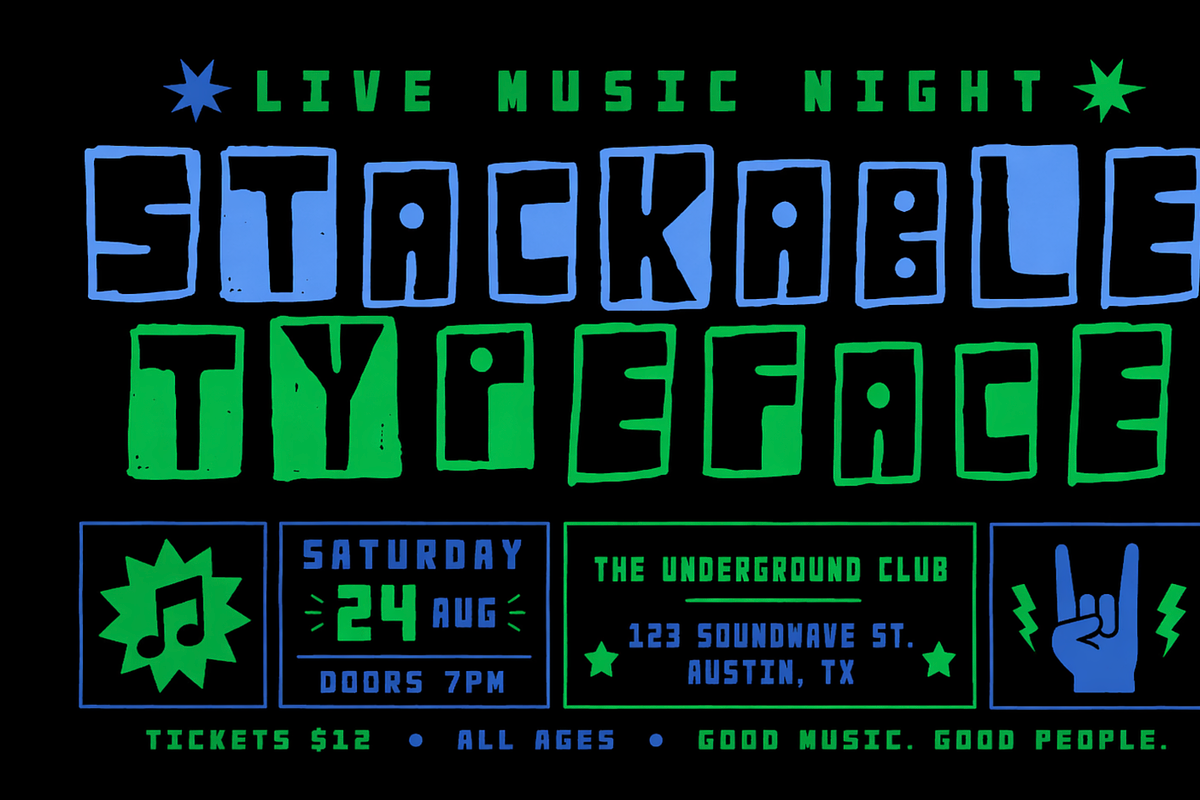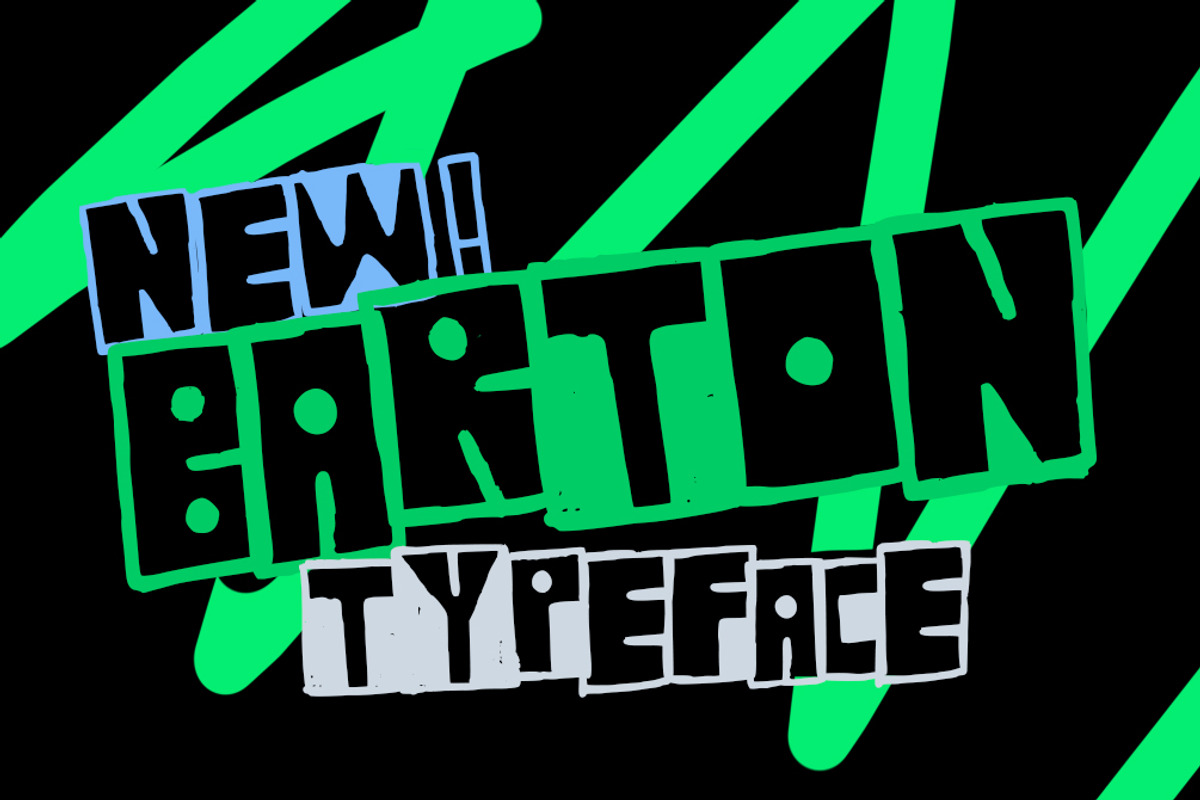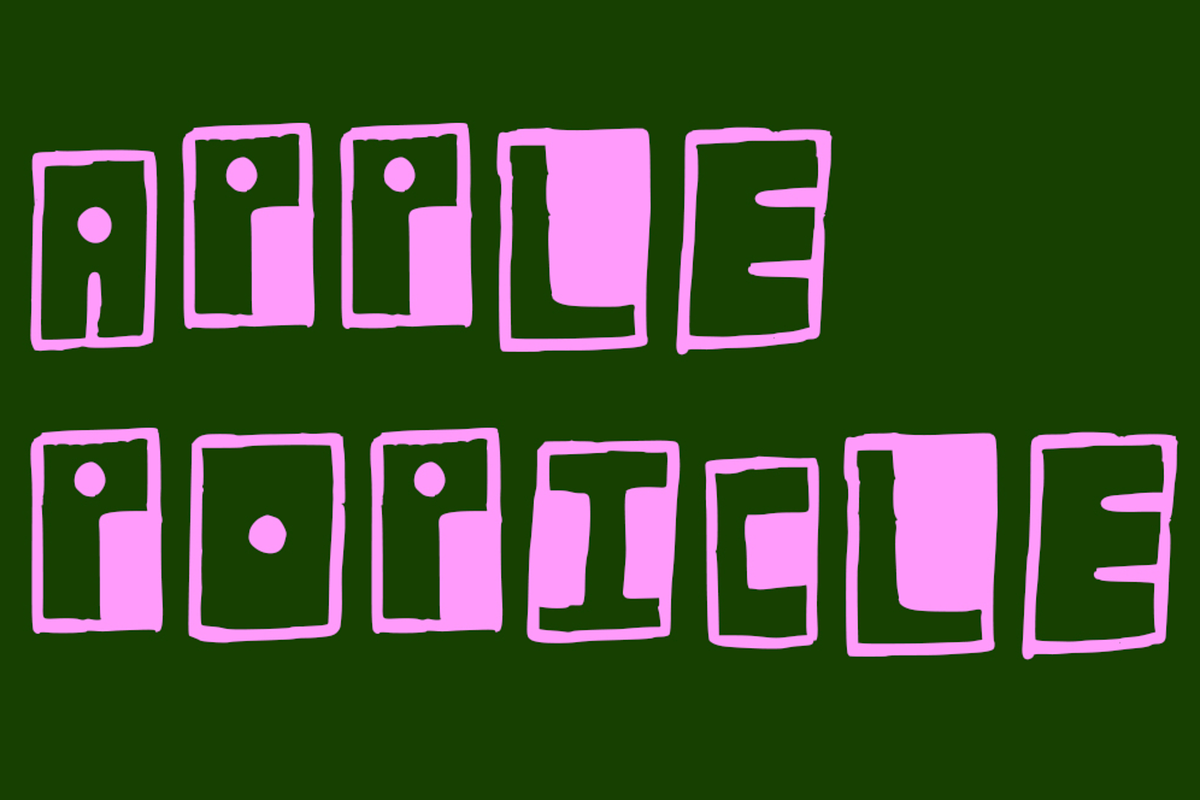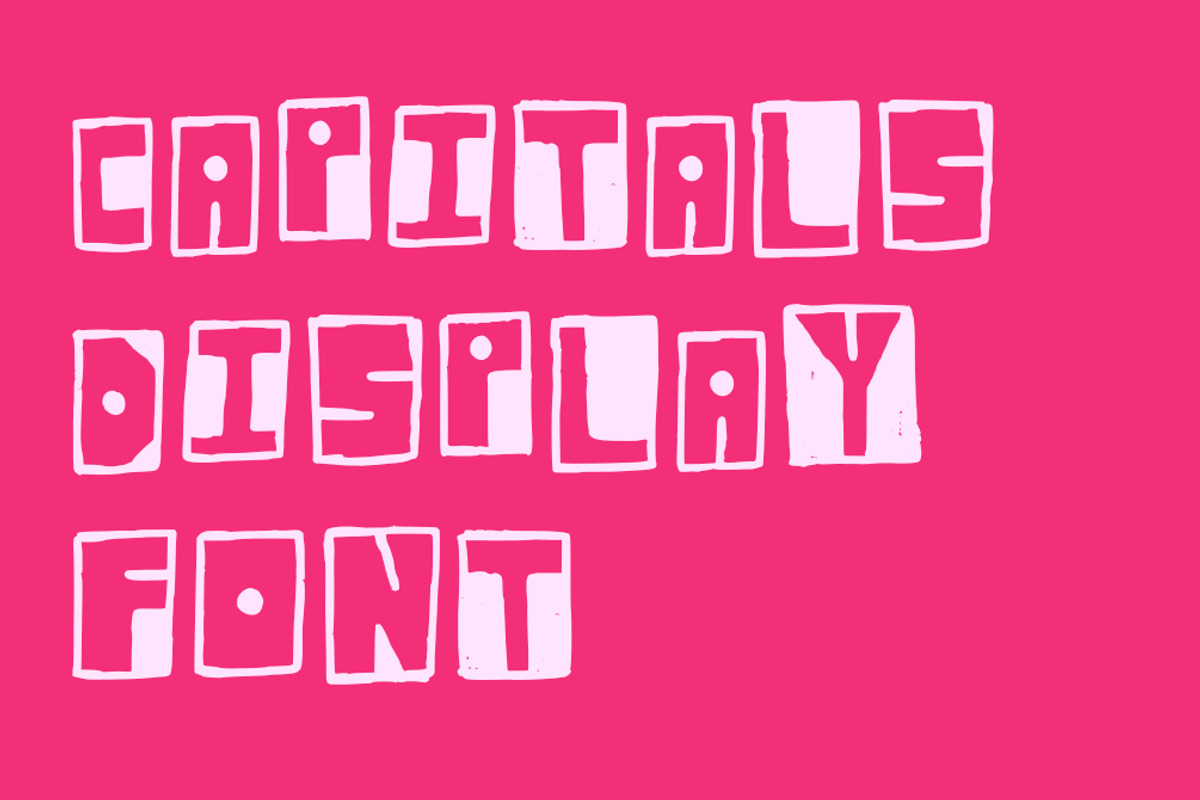
Barton - Chunky Handmade Block Font
Some fonts want to blend in. Barton isn't one of them.
Barton is a chunky, handmade block typeface built for projects that need to stop the scroll, own the wall, and demand to be noticed. Every letter is drawn by hand - irregular, imperfect, and completely full of character. It's the font for when "bold" isn't bold enough.
What Barton is built for:
Music events, gig posters, and festival branding
Streetwear, merch, and apparel graphics
Kids brands, games, and toy packaging
Zines, editorial, and alternative print
Social media content that actually stands out
Logos and wordmarks with real personality
What makes it different:
Barton's block structure makes it naturally stackable - layer colours, mix weights, offset rows. The irregularity that comes from being hand-drawn means no two uses ever look exactly the same.
Complete uppercase character set
Numbers and punctuation
Multilingual support (Western European characters)
Barton is for the projects that refuse to be boring.